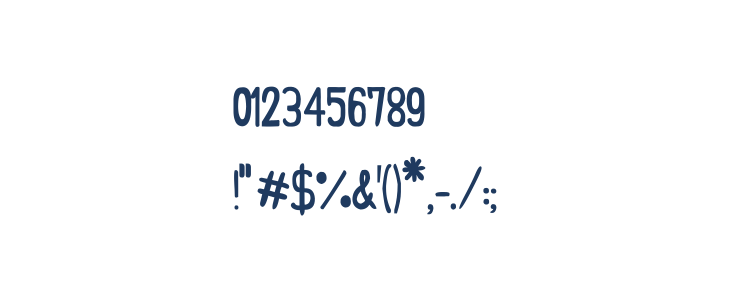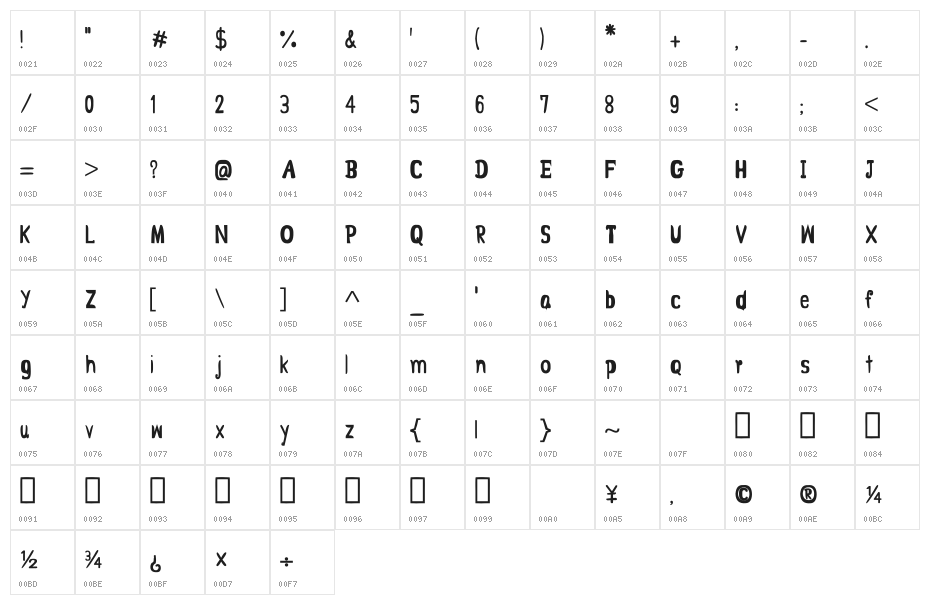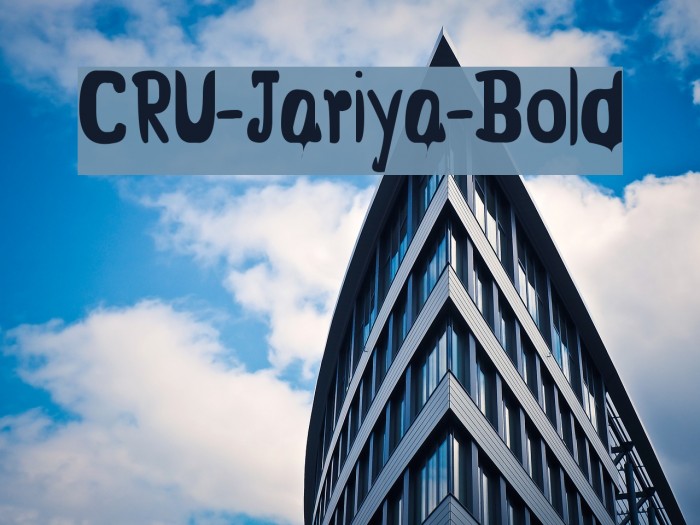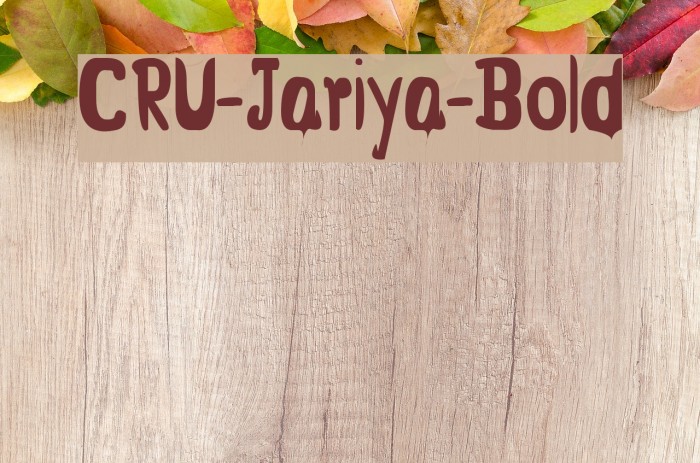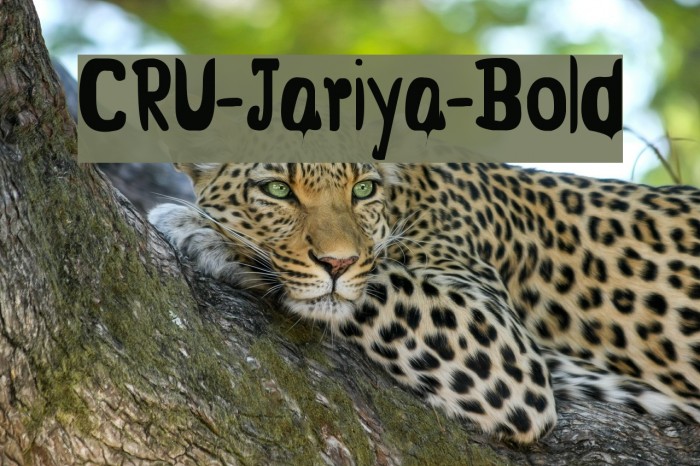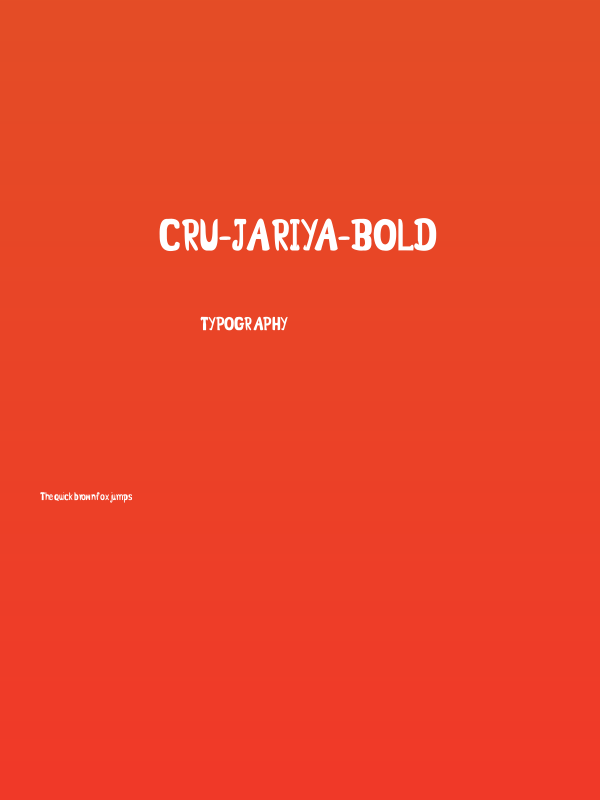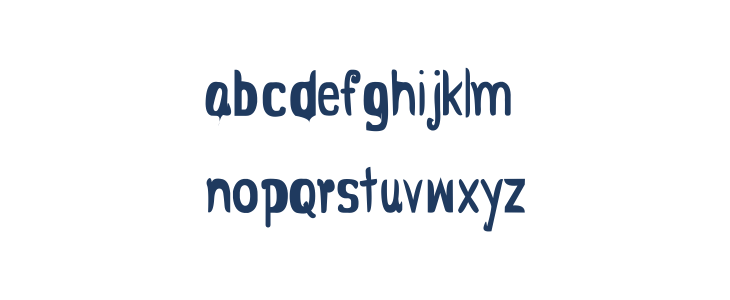
CRU-Jariya-Bold Font
CRU-Jariya-Bold Description
This font features a bold and playful design with a unique, slightly irregular character shape that adds a whimsical touch. The uppercase letters are robust and eye-catching, while the lowercase letters maintain a consistent style with a slightly more relaxed form. The numerals are clear and bold, matching the overall aesthetic. Special characters are creatively designed, maintaining the playful theme. The font's overall appearance is both modern and decorative, making it suitable for a variety of creative projects.
| Proposed Projects | Ideal for children's books, playful branding, creative posters, and eye-catching headlines. |